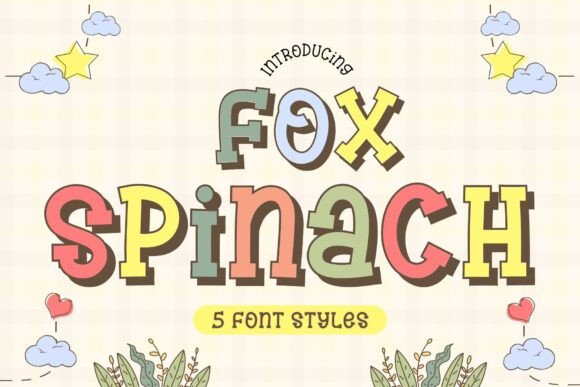
Introducing Fox Spinach Font: A Playful and Energetic Display Font
Are you looking for a font that can add a captivating and energetic touch to your designs? Look no further than Fox Spinach Font, a 5-style display font that is perfect for creating attention-grabbing headlines, t-shirt typography, banners, product labels, and more. In this article, we’ll take a closer look at the features and benefits of Fox Spinach Font and explore how it can elevate your designs.
What is Fox Spinach Font?
Fox Spinach Font is a modern display font that is designed to add a touch of playfulness and energy to your designs. With its vibrant and expressive design, this font is perfect for use in a variety of applications, including publications, menus, logos, business cards, and even printed on t-shirts. The font comes in 5 different styles, allowing you to choose the one that best fits your design needs.
Key Features of Fox Spinach Font
So, what makes Fox Spinach Font so special? Here are some of its key features:
- 5 Style Options: Fox Spinach Font comes in 5 different styles, giving you the flexibility to choose the one that best fits your design needs.
- Playful and Energetic Design: The font has a vibrant and expressive design that is perfect for creating attention-grabbing headlines and typography.
- Unique and Captivating: Fox Spinach Font exudes uniqueness, making it perfect for designs that need to stand out from the crowd.
- Versatile: The font can be used in a variety of applications, including publications, menus, logos, business cards, and even printed on t-shirts.
Benefits of Using Fox Spinach Font
So, why should you choose Fox Spinach Font for your designs? Here are some of the benefits of using this font:
- Adds Energy and Playfulness: Fox Spinach Font can add a touch of energy and playfulness to your designs, making them more engaging and attention-grabbing.
- Perfect for Headlines and Typography: The font is perfect for creating attention-grabbing headlines and typography that will make your designs stand out.
- Increases Brand Recognition: With its unique and captivating design, Fox Spinach Font can help increase brand recognition and make your designs more memorable.
Design Ideas Using Fox Spinach Font
Fox Spinach Font is a versatile font that can be used in a variety of design applications. Here are some design ideas to get you started:
- T-Shirt Designs: Use Fox Spinach Font to create attention-grabbing t-shirt designs that will make your brand stand out.
- Posters and Flyers: Use the font to create eye-catching posters and flyers that will grab the attention of your audience.
- Logos and Branding: Use Fox Spinach Font to create unique and captivating logos and branding materials that will make your brand memorable.
- Menus and Brochures: Use the font to create menus and brochures that will make your business stand out.
In conclusion, Fox Spinach Font is a 5-style display font that is perfect for adding a captivating and energetic touch to your designs. With its vibrant and expressive design, this font is perfect for use in a variety of applications, including publications, menus, logos, business cards, and even printed on t-shirts. Whether you’re looking to create attention-grabbing headlines, t-shirt typography, banners, product labels, or more, Fox Spinach Font is a great choice.
Here are some frequently asked questions about Fox Spinach Font:
- What is Fox Spinach Font?
- Fox Spinach Font is a 5-style display font that is designed to add a touch of playfulness and energy to your designs.